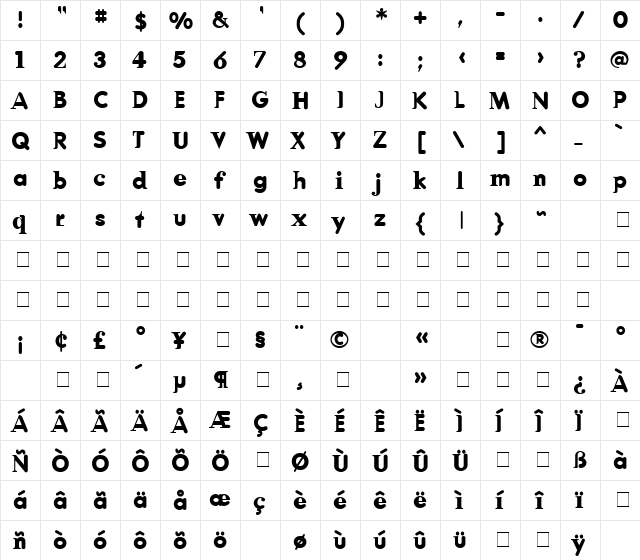
DeadHistoryBold Regular
Design Context for DeadHistoryBold Typeface
DeadHistoryBold takes a measured approach to typography — its balanced proportions and neutral character make it a reliable workhorse for both digital and print work. The heavy weight commands attention and anchors typographic hierarchies.